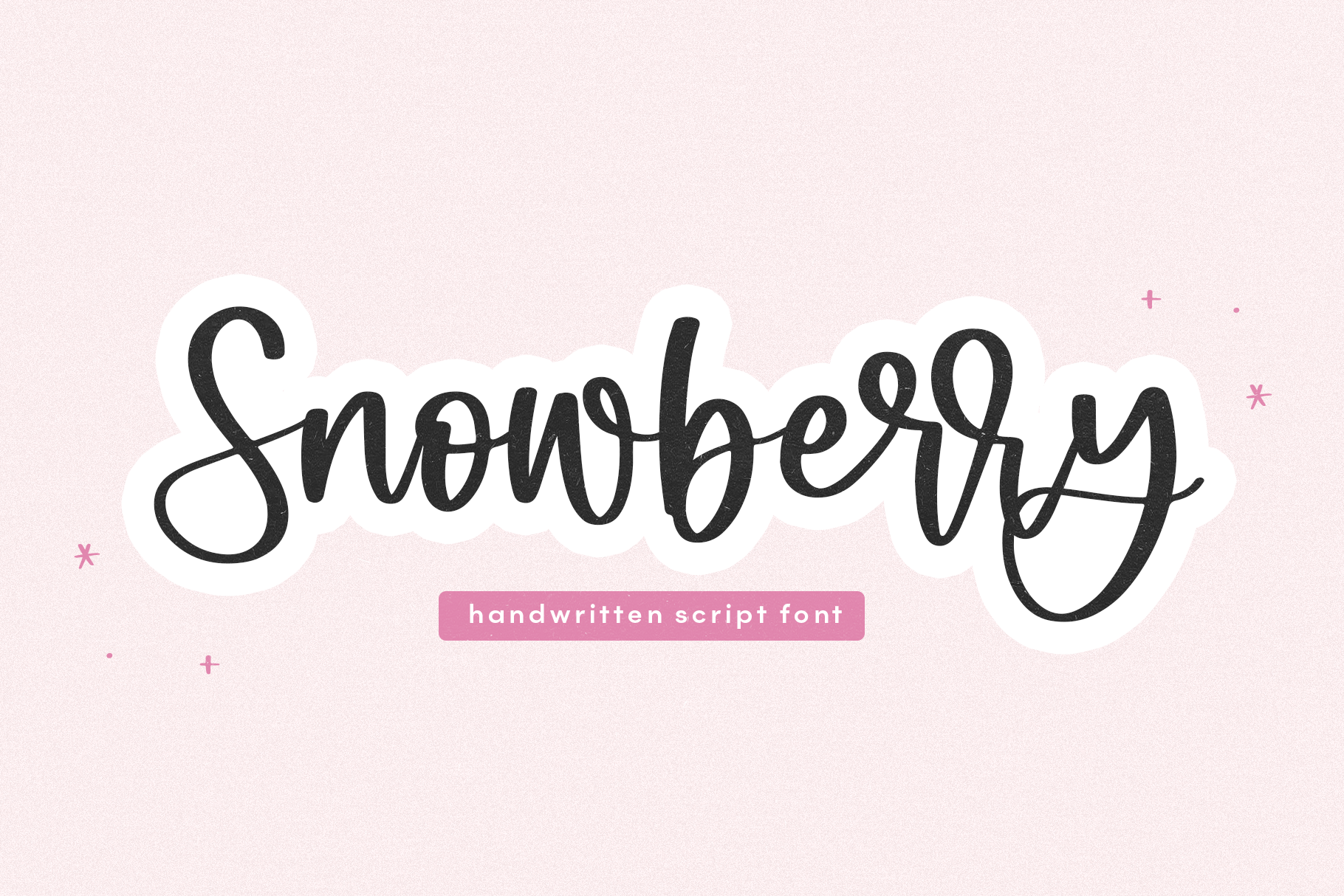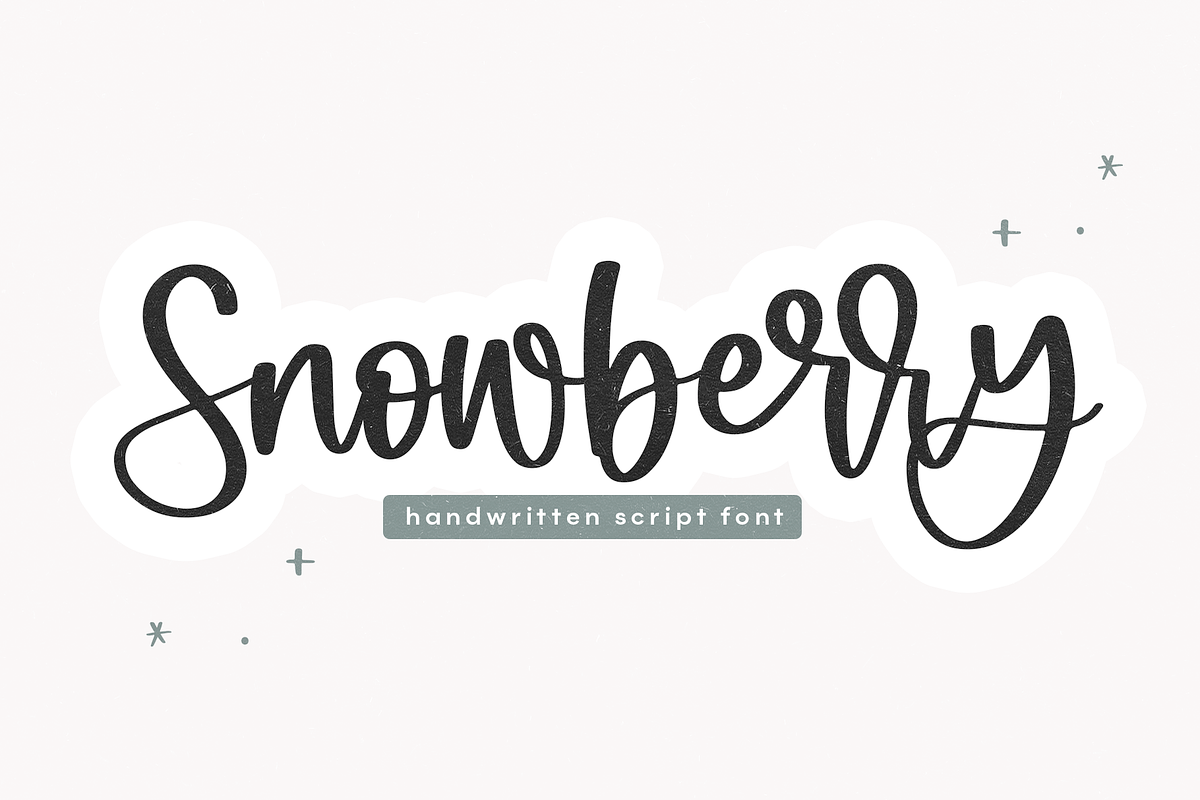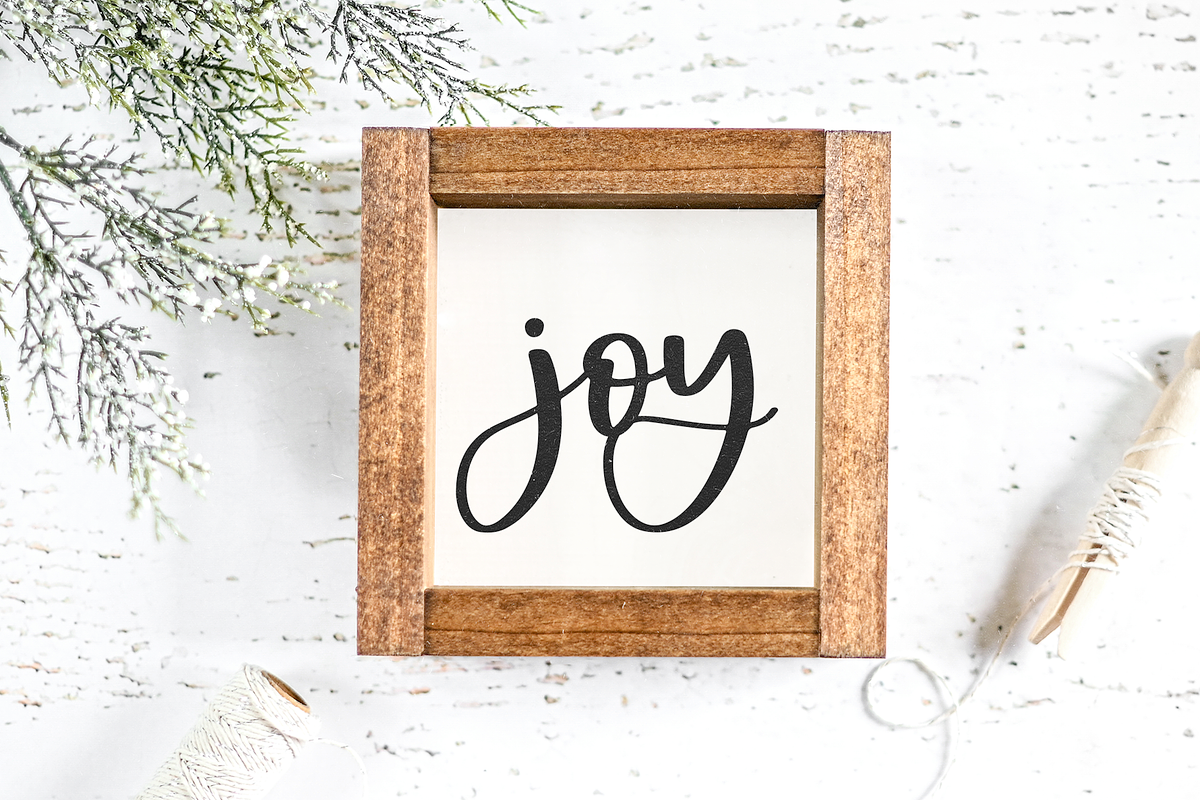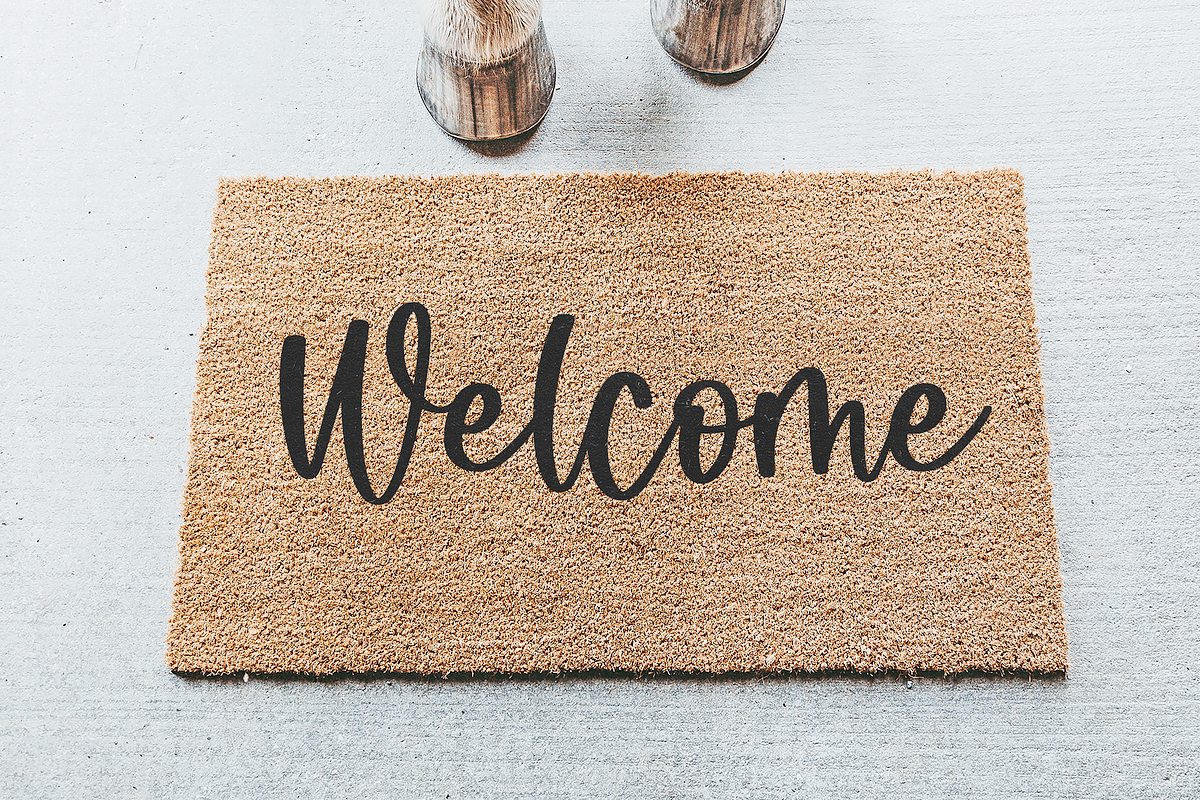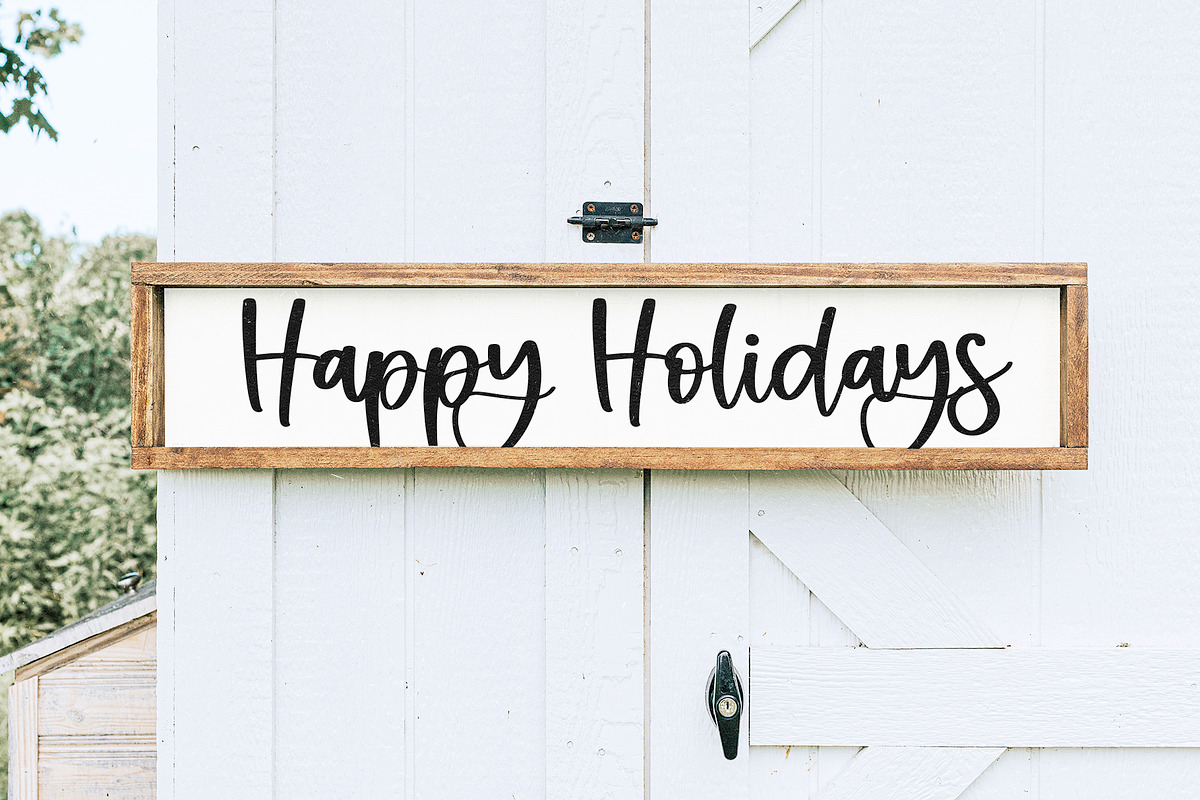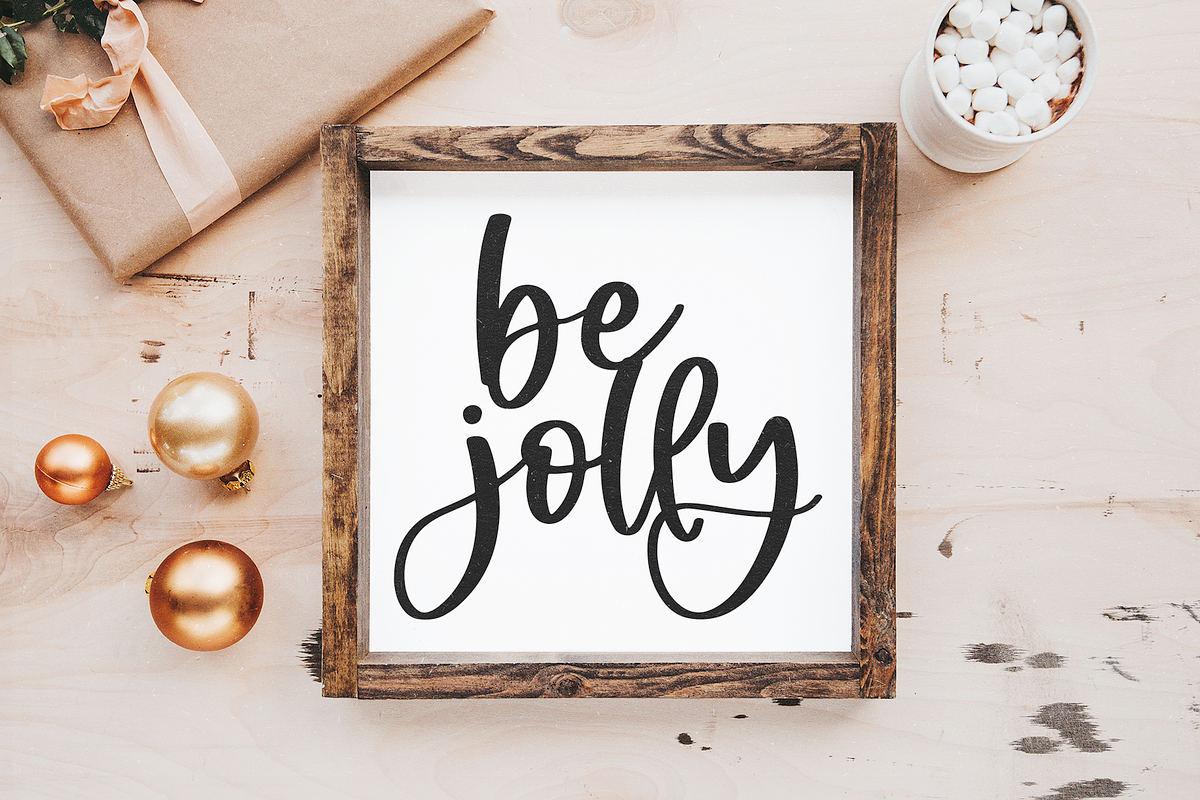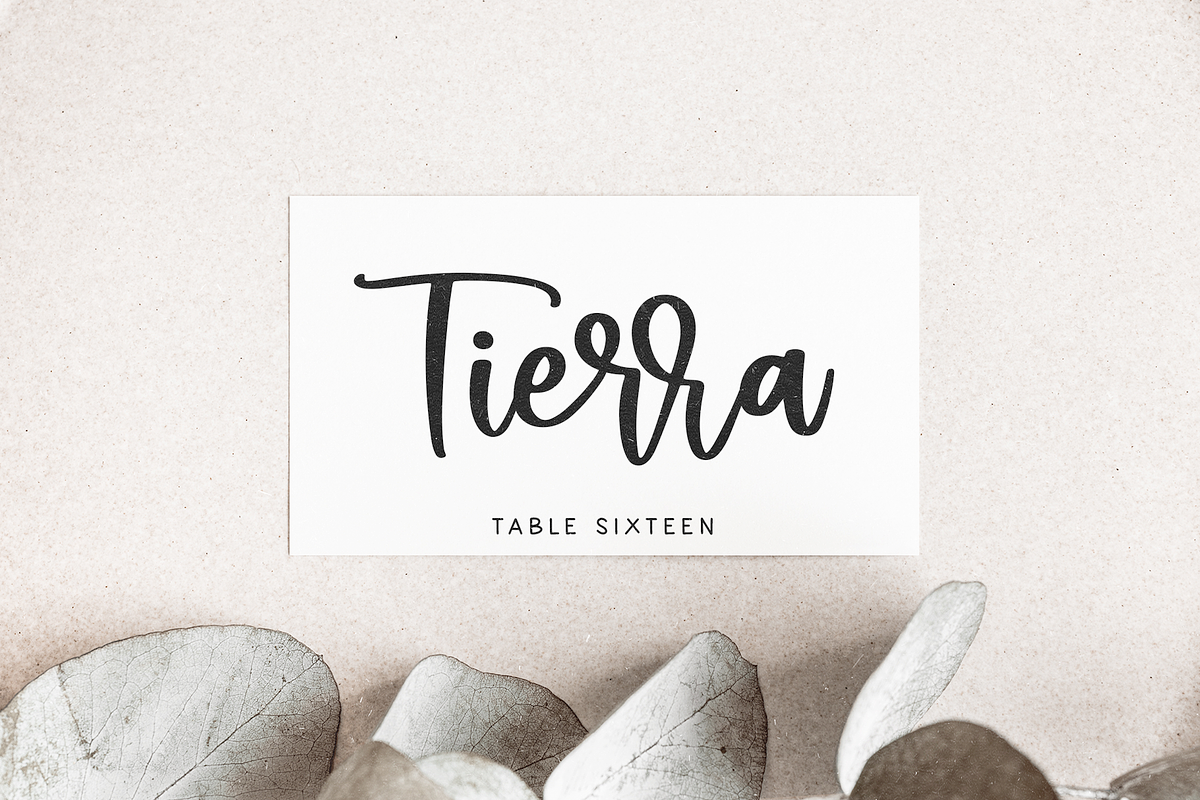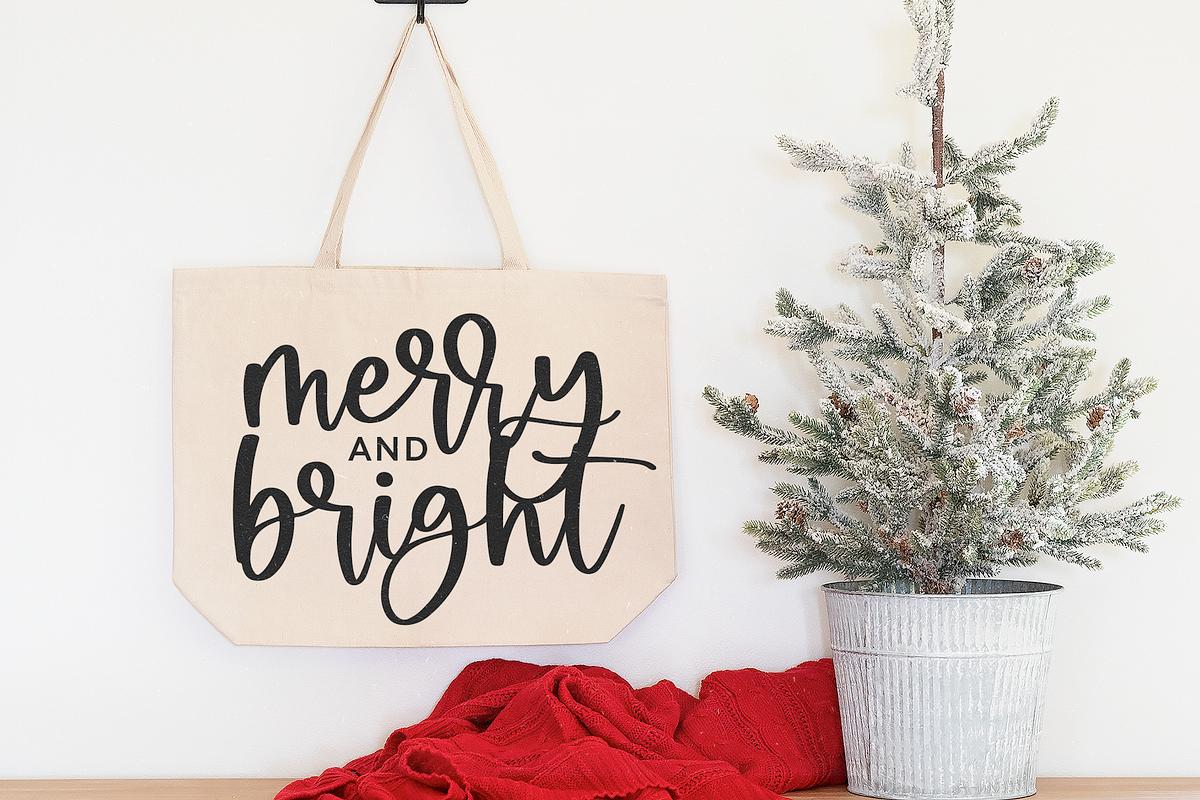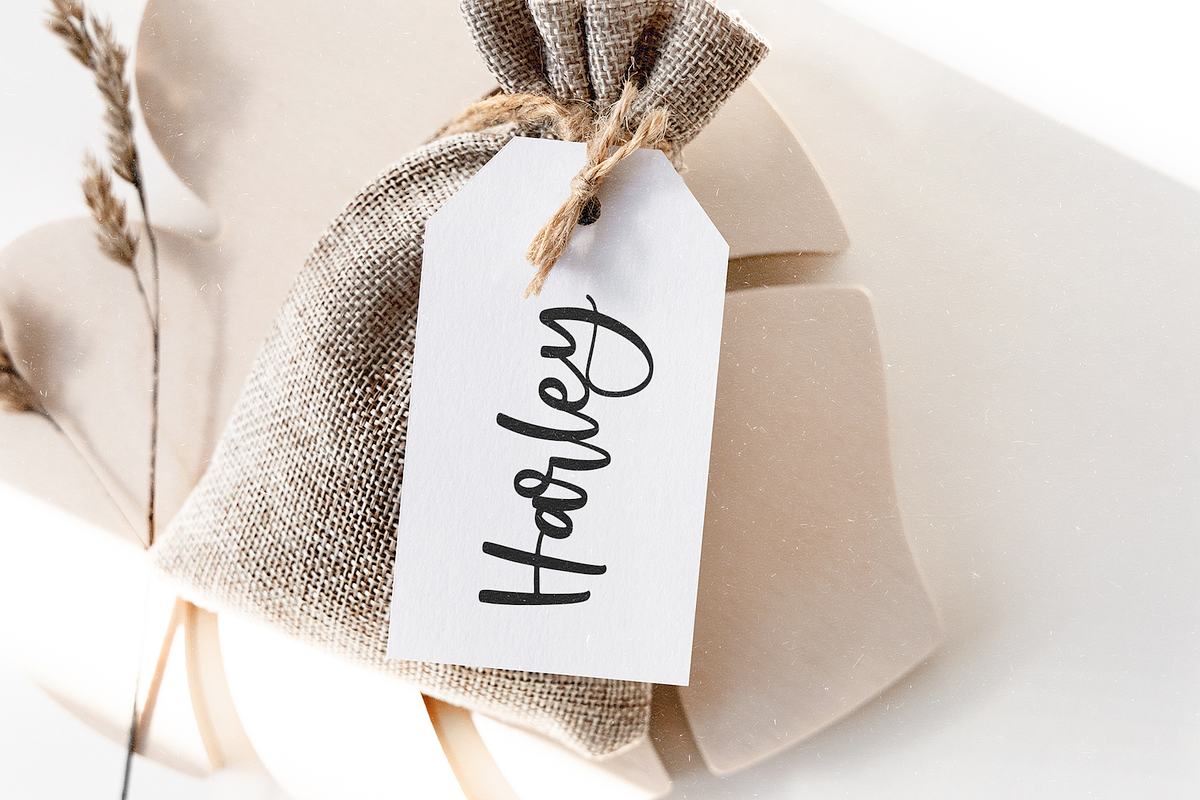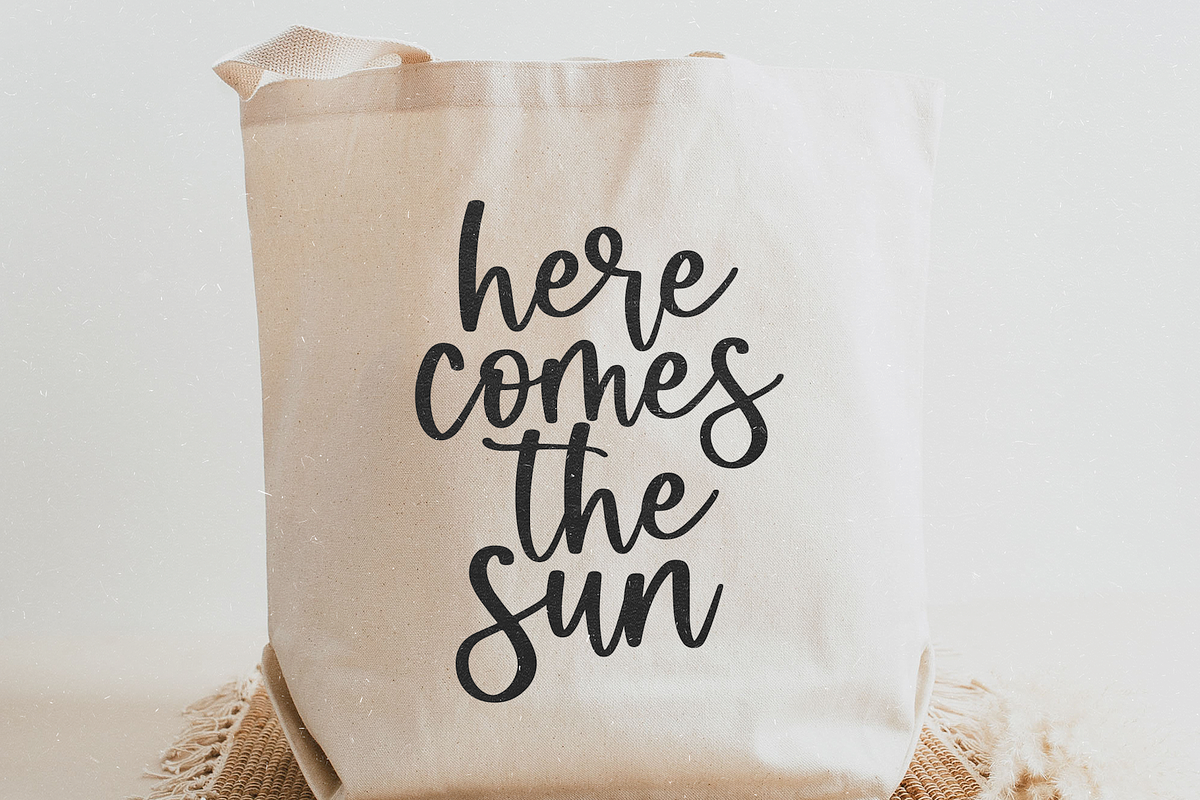
Snowberry | Handwritten Script Font
Snowberry is a bouncy handwritten script font.
This font is perfect for svg designs, shirts, crafts, websites, farmhouse decor, christmas designs, branding, blogs, logos, invitations and more!